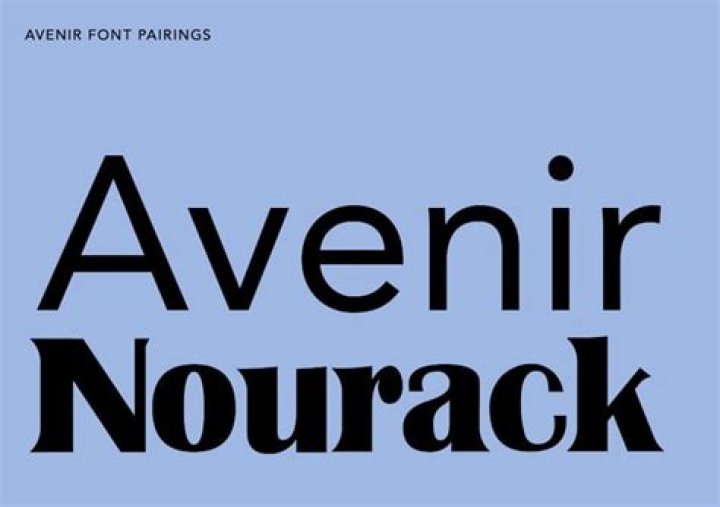
How to Import Google Fonts in CSS File
1. Find the font and click it (a card with the font), then, click "+ Select this style".
2. Click "Embed" and choose <link> or @import depending on where you need to add the font (in HTML or CSS).
3. Copy/paste the codes you need.
How do I change the font family in CSS?
How to Change the Font With CSS
1. Locate the text where you want to change the font.
2. Surround the text with the SPAN element: <span>This text is in Arial</span>
3. Add the attribute to the span tag: <span>This text is in Arial</span>
4. Within the style attribute, change the font using the font-family style.
How do I put TTF fonts in CSS?
1. Adding .
2. Download .
3. Create a HTML file: Create a HTML file and add a h2 tag for demonstrating our font style.
4. Create a CSS file: For adding external fonts through CSS, we use the @Font-face attribute property to manually define font name and giving source file.
5. Final result: This is how our font look on the browser.
How do you change text in CSS?
To do so, we change the visibility of this text using CSS to hidden first. Then we add a new text at the exact same position, using the pseudo elements and corresponding explicit positioning. Note that after is the pseudo element in use here. We use the visibility modifier once again to show the new text.
How do you import CSS?
Note: There are two different ways to import a CSS file into another using @import url(“style2. css”); or @import “style2. css”; or directly import any CSS file or multiple CSS file in the HTML file directly within <style>@import “style1.
How do I use webfonts CSS?
How to Install and Use Web Fonts on Your Site
1. Step 1: Upload the Font Files to your Site/Server. The first thing you'll want to do is upload the font files to your server.
2. Step 2: Add the @font-face to Your CSS. Next, open up your css file.
3. Step 3: Use the Font throughout your CSS.
What is font family in CSS?
The font-family CSS property specifies a prioritized list of one or more font family names and/or generic family names for the selected element.
What is font face in CSS?
The @font-face CSS at-rule specifies a custom font with which to display text; the font can be loaded from either a remote server or a locally-installed font on the user's own computer.
Is the Avenir font free?
However, after sometimes the Avenir family expanded and reached 6 weights. To expand Avenir's features and weights, a designer Akira Kobayashi further worked on this font and was named 'Avenir Next. '
Font Information.
Name Avenir Font
License Freeware, Non-Commercial
Type Opentype, Truetype
Is Avenir a standard font?
The word avenir is French for "future". As the name suggests, the family takes inspiration from the geometric style of sans-serif typeface developed in the 1920s that took the circle as a basis, such as Erbar and Futura.
Avenir (typeface)
Category Sans-serif
Foundry Linotype GmbH
Date released 1988
Can I use Avenir font for free?
License Information
Avenir is a completely free font that you can use in your graphic designs. However, if you would like to use it for commercial purposes then you must have to buy it or contact the author for permissions.
How do I use Comic Sans MS in CSS?
Use quotes to surround the font: font-family: "Comic Sans MS"; That should solve the problem.
What is the default CSS font?
Add or Edit CSS The CSS file comes with the system defaults style. However you can change any of these styles. This includes: The default font style: body {}
What font does Apple use?
Apple modified the majority of its website's text to use the San Francisco font on January 24, 2017, and San Francisco became the universal official font for Apple.